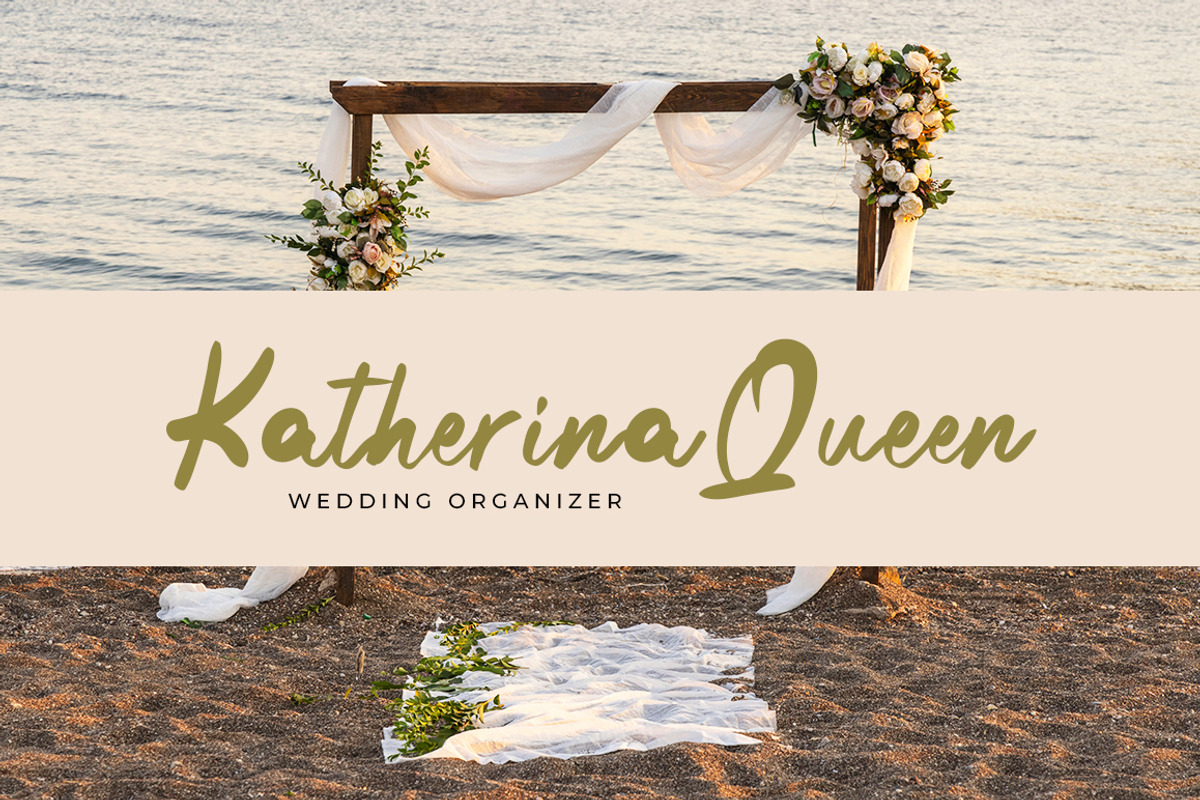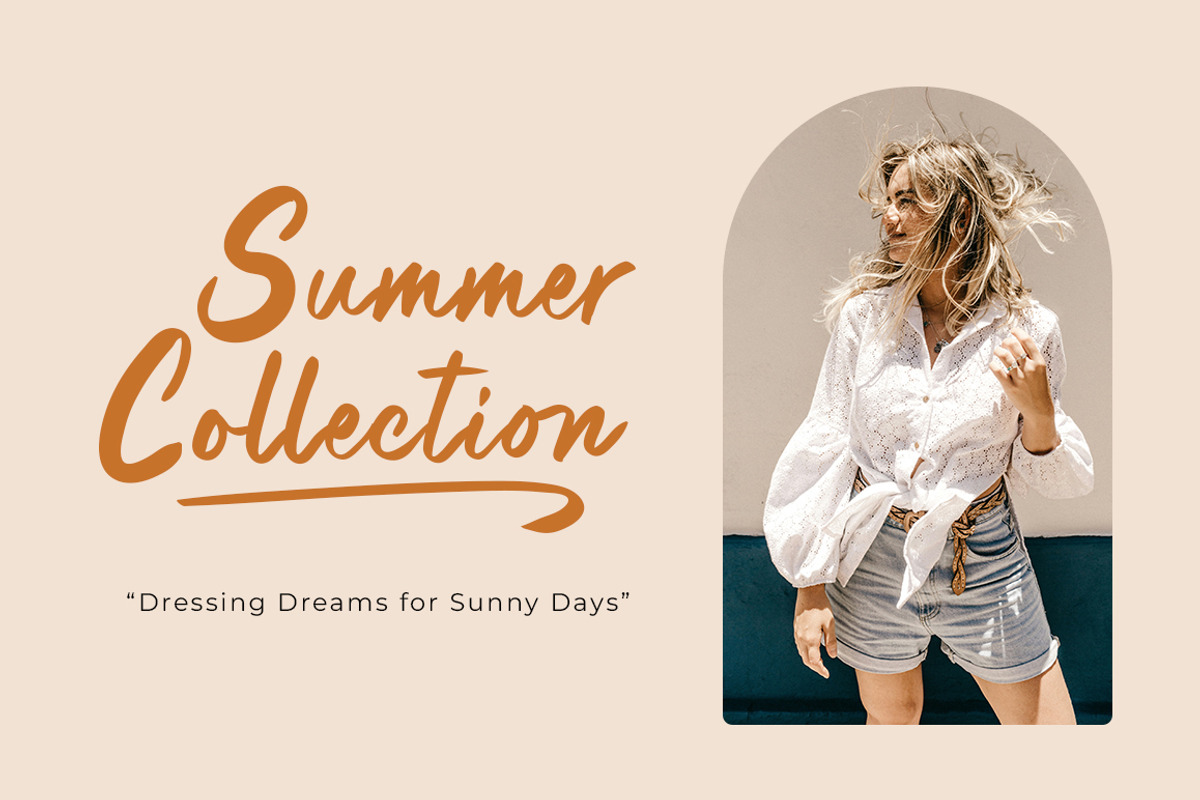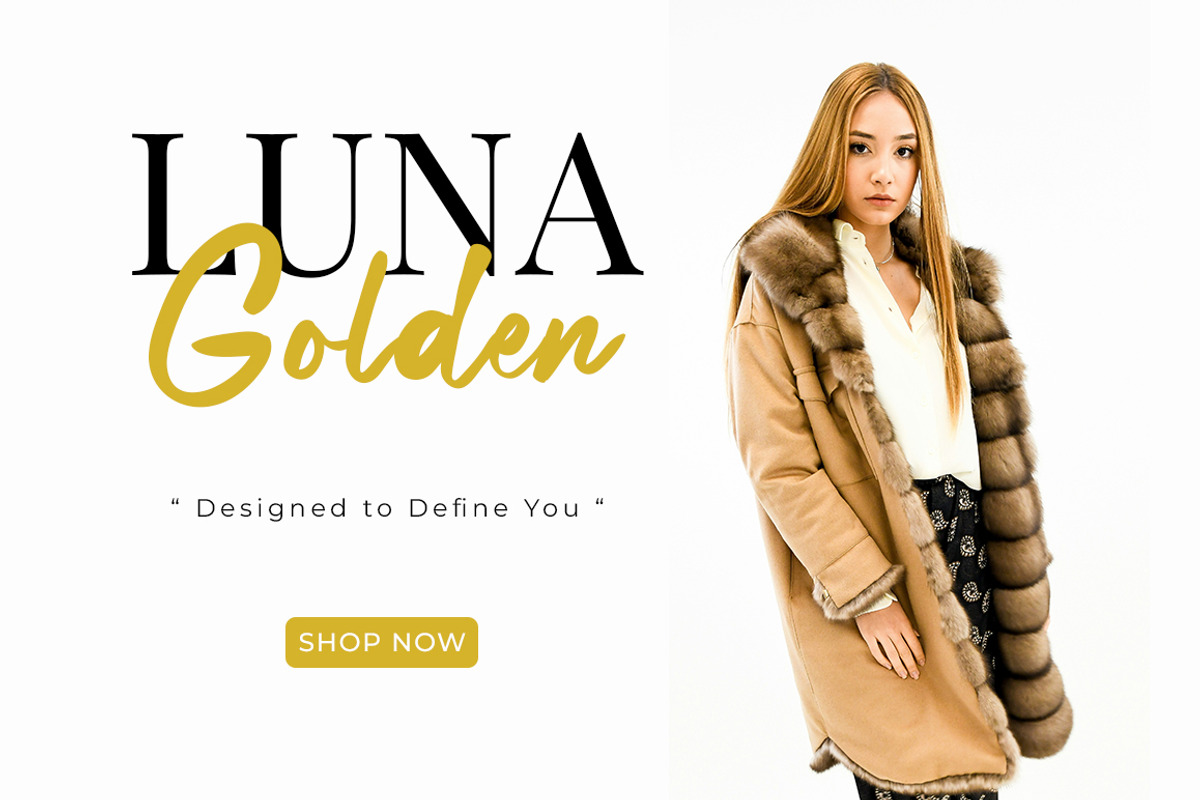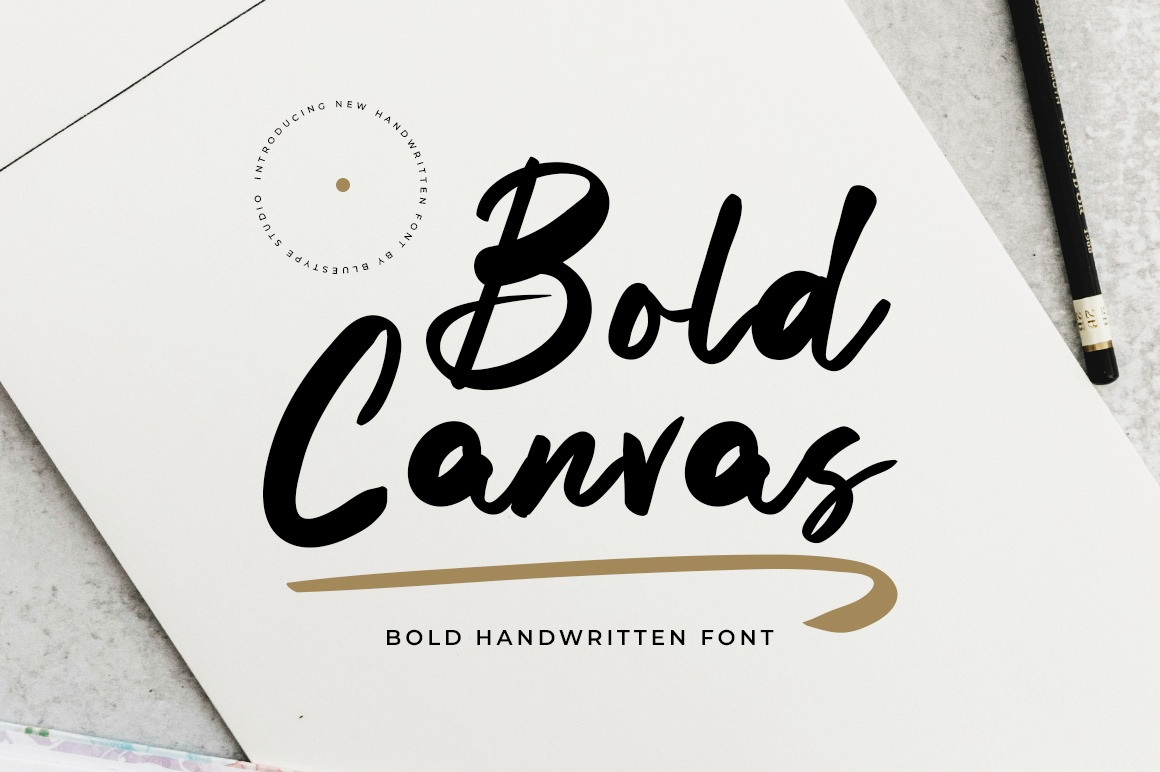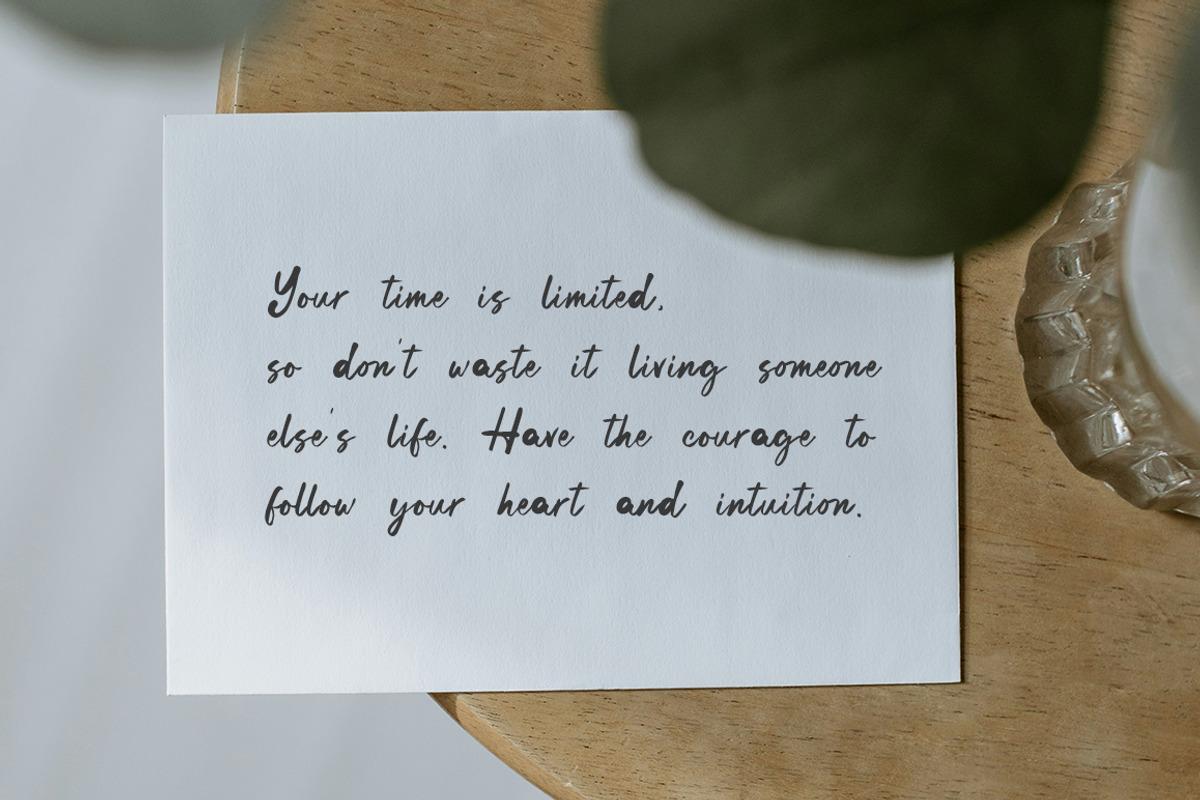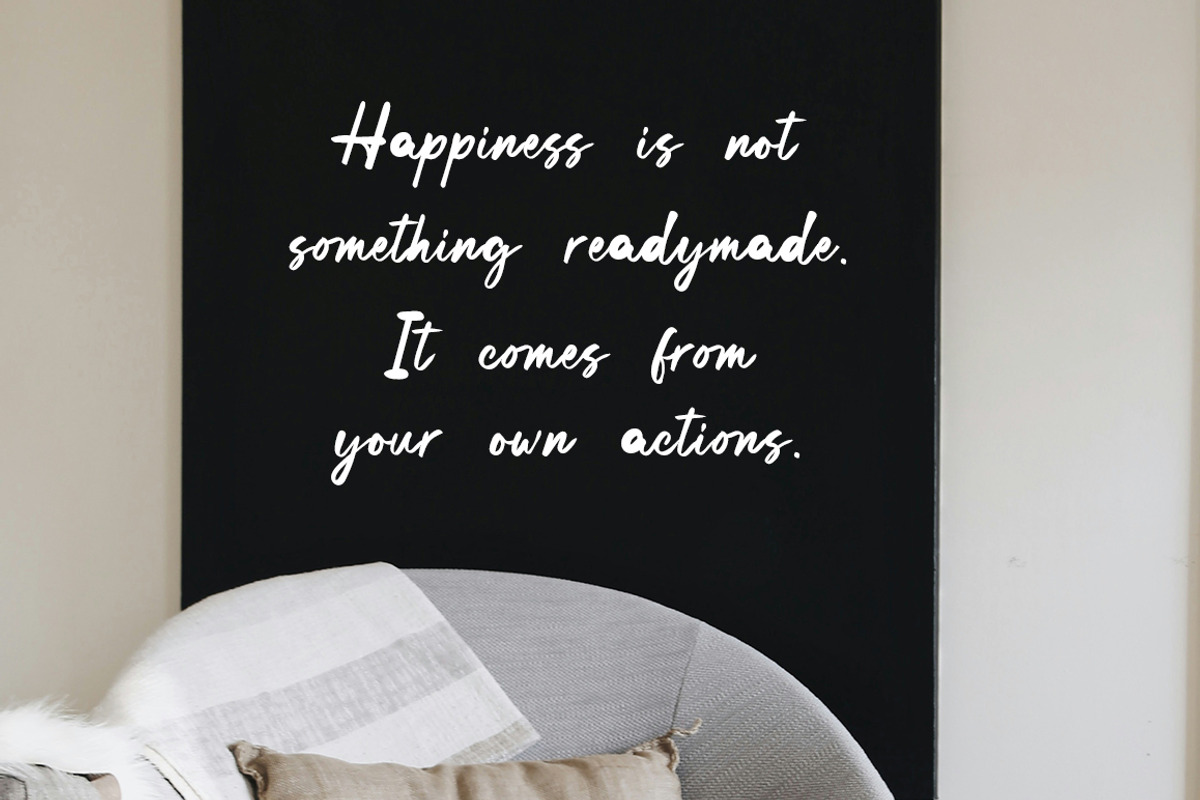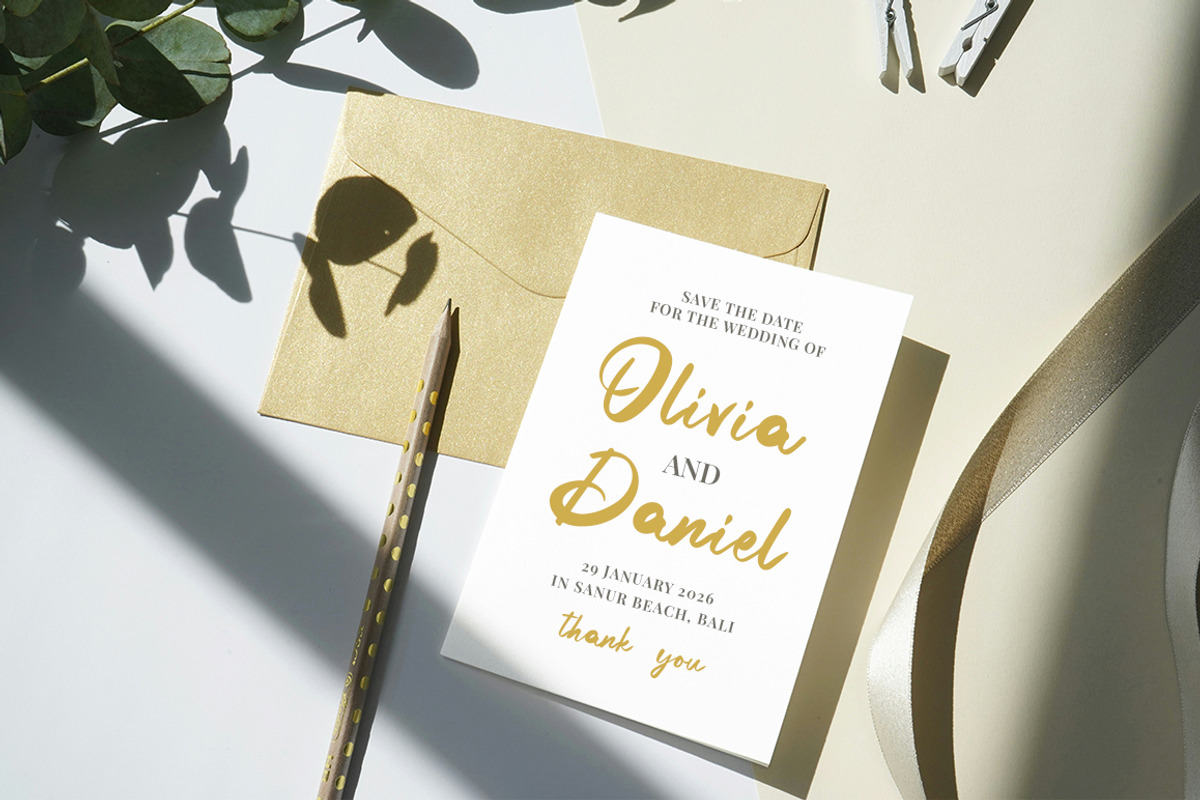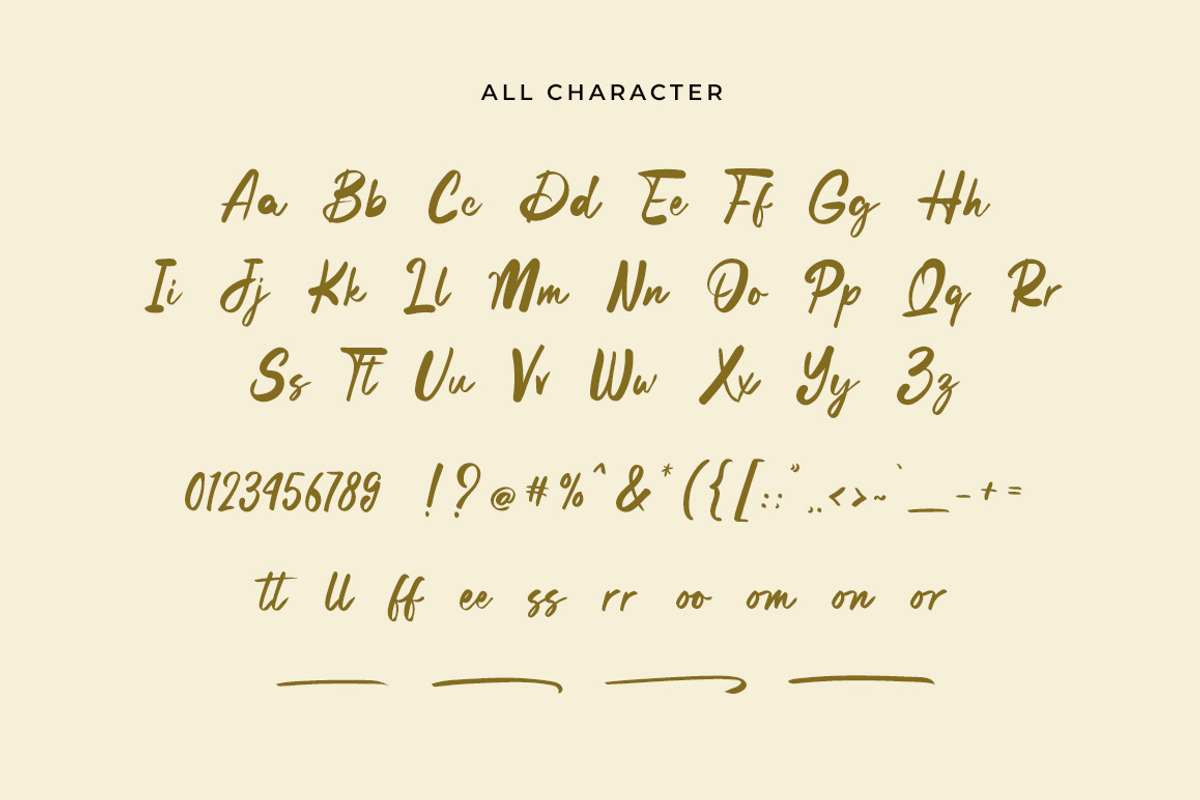
Bold Canvas - Handwritten Font
Bold Canvas is a font made with manual handwriting on paper that has a beautiful and natural curve shape with thick and thin characteristics according to hand strokes, ligature and swash features are available ready to use if you need them.
This font is perfect for your commercial needs such as wedding invitations, social media posts, product branding designs, logotypes for your products, business card designs, modern posters, and many more.
- Swash Character